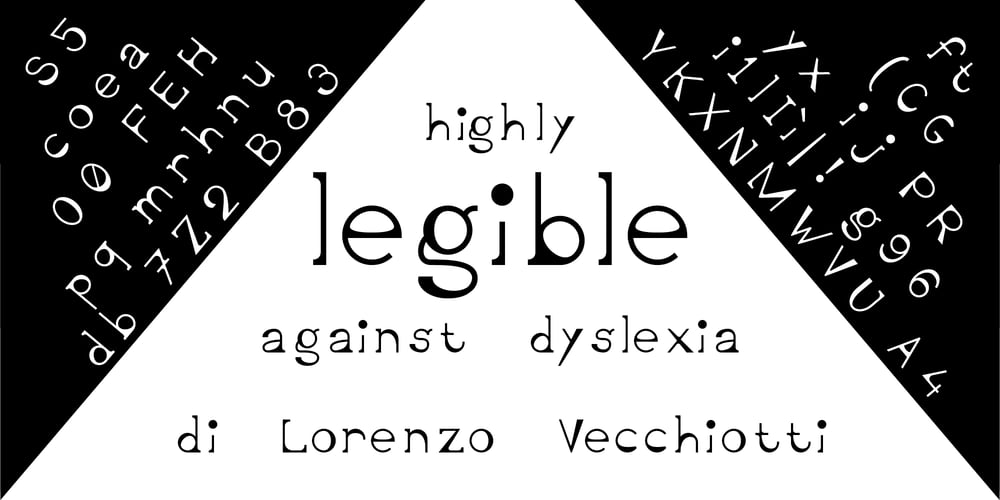
Legible Font Family was designed by Lorenzo Vecchiotti and published by Lorenzo Vecchiotti. Legible contains 1 styles and family package options. All the most common letters and numbers wich are cofused by dyslexic ones are different from each other in a way or another in this font. Also, the space between words and the line spacing helps legibility along with distanced and big puntctuation. Learn more on lorenzovecchiotti.altervista.org